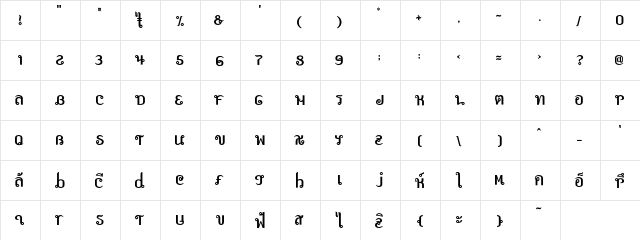
Exotica Jasumin Font Preview
Exotica Jasumin
Design Context for Exotica Typeface
Exotica is a composed and adaptable typeface that performs quietly and consistently across a wide range of design contexts.